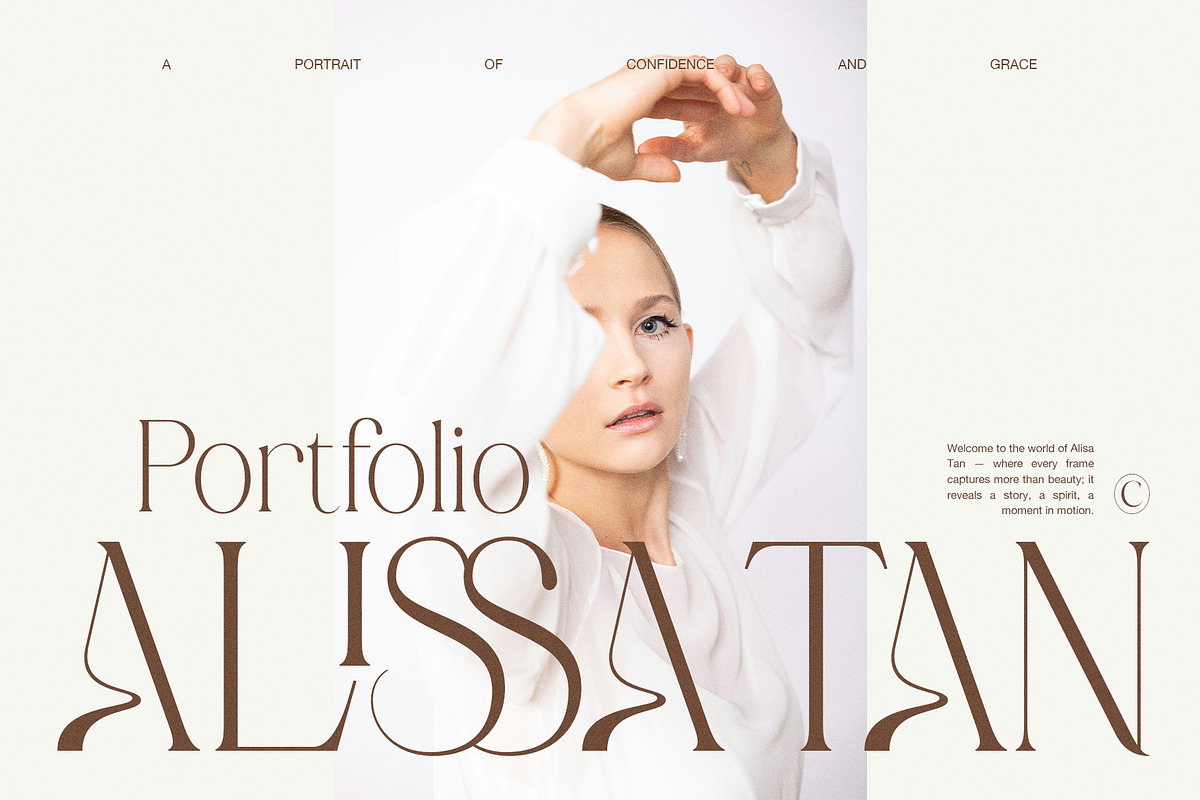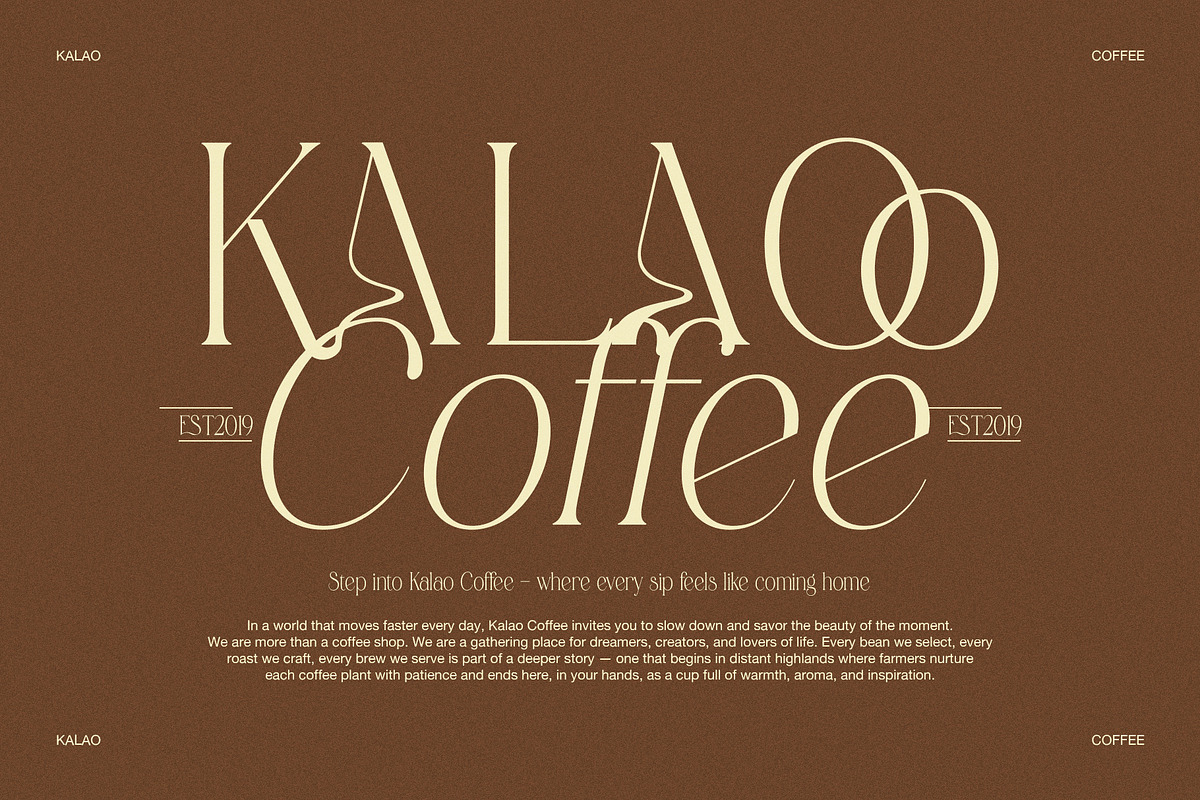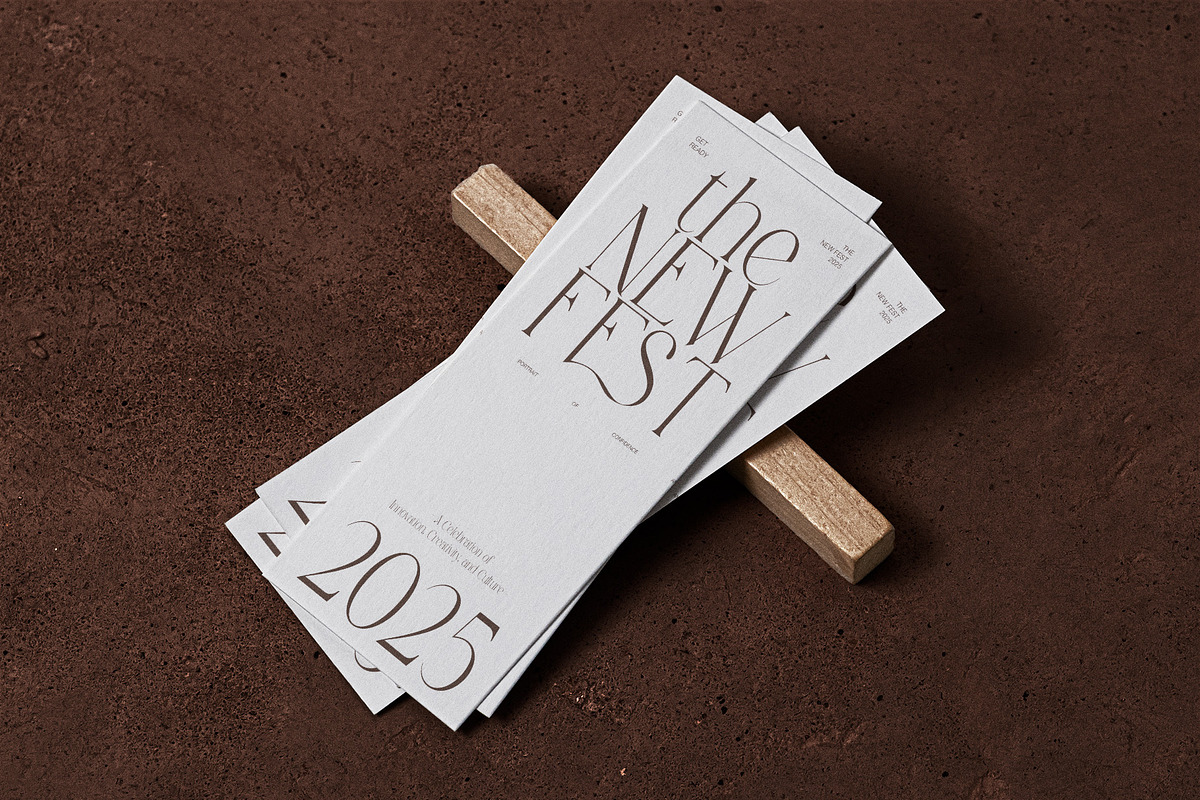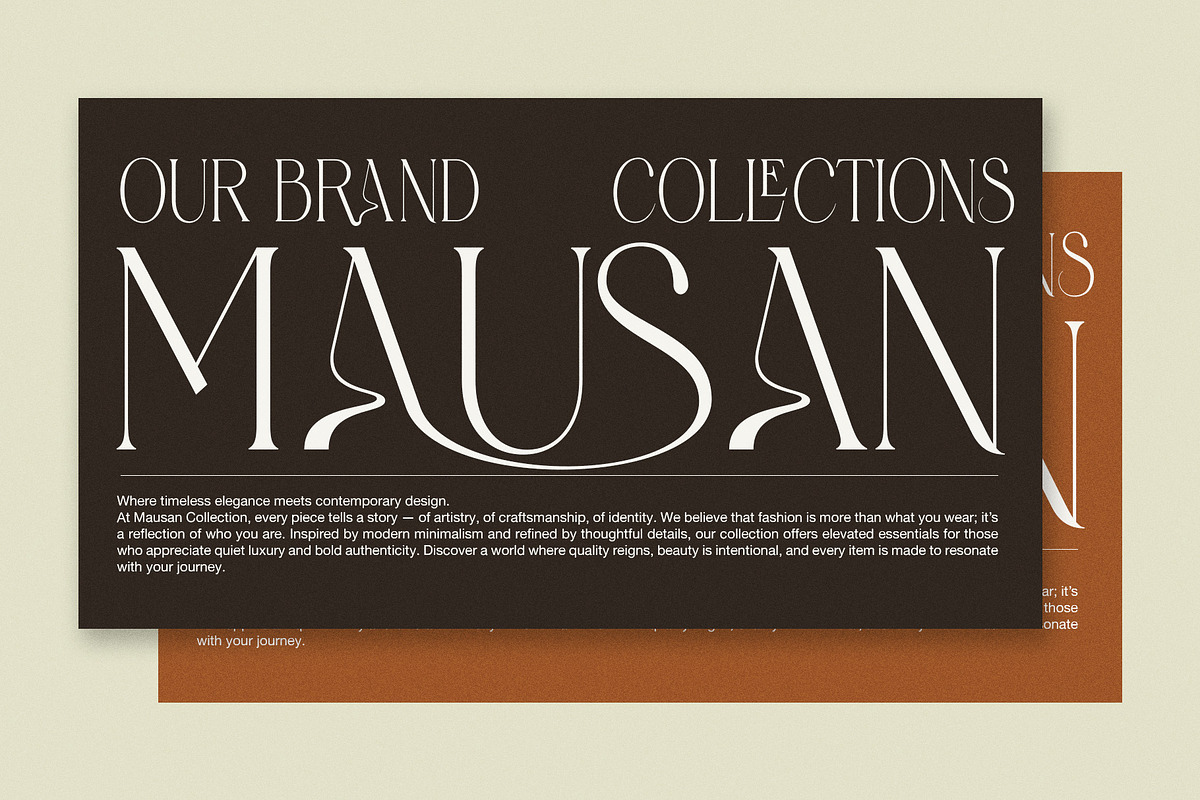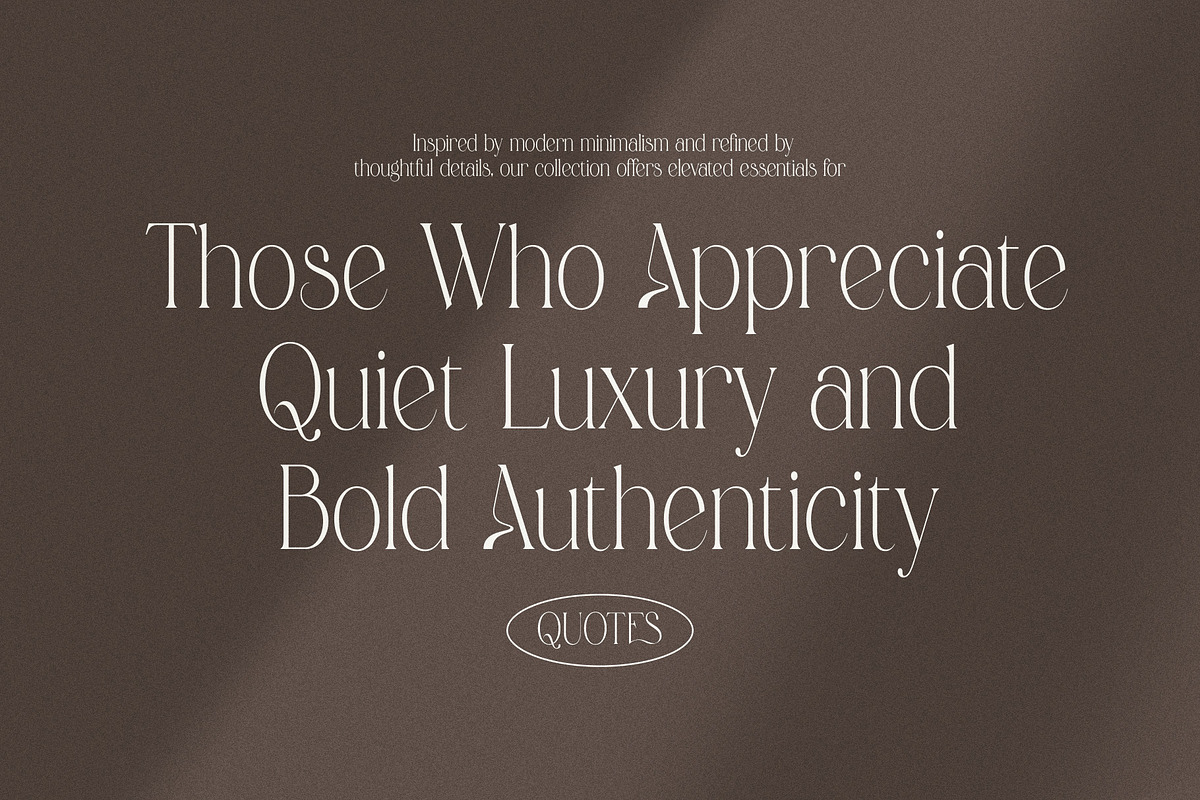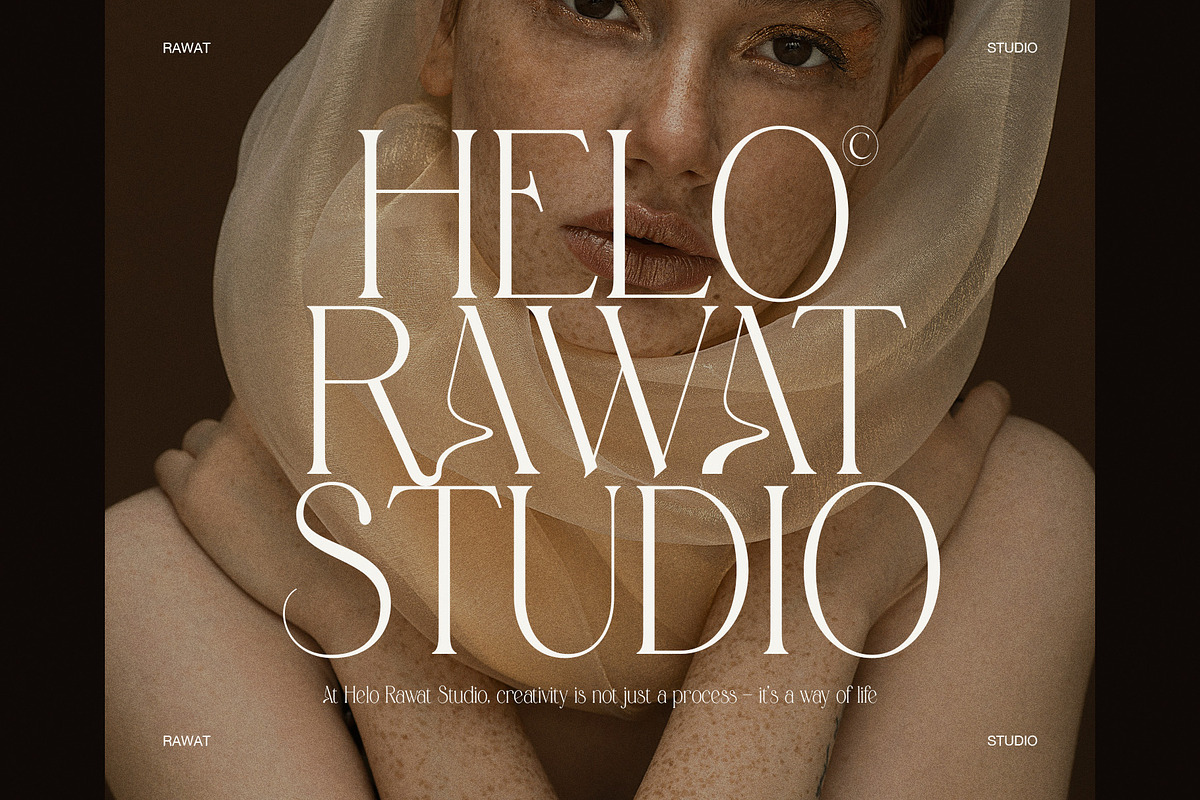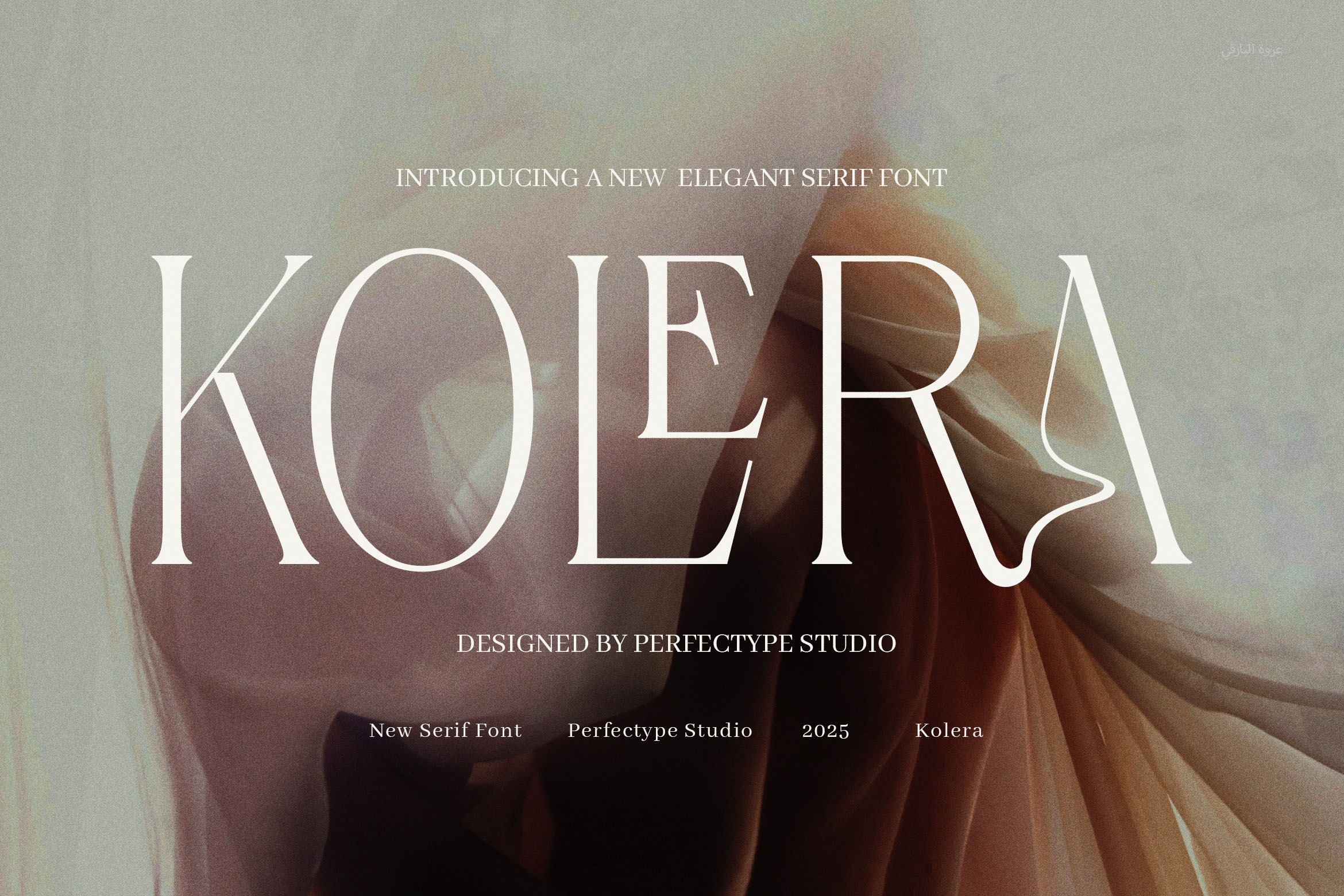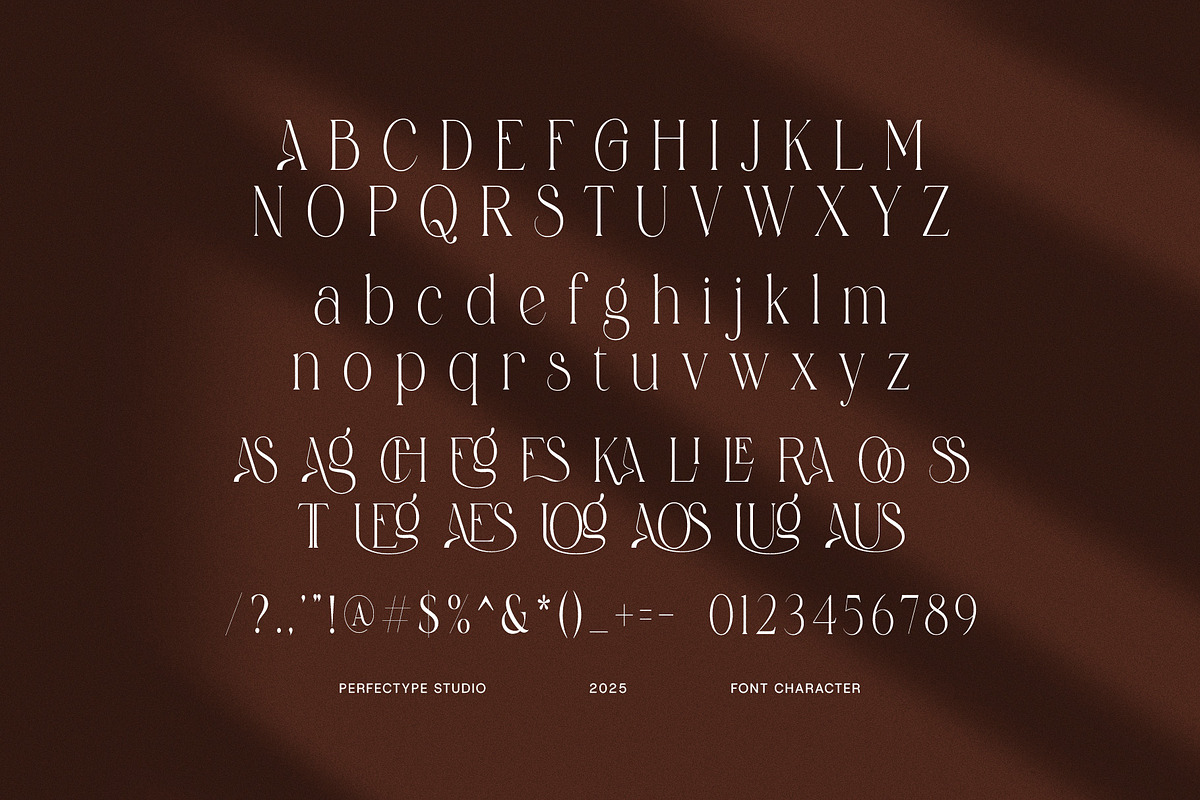
Kollera Ligature Serif Font
Kollera Ligature Serif Font is a refined blend of modern sophistication and classic charm, designed to elevate your visual storytelling across any creative project. With its graceful ligatures and distinctive alternate characters, Kollera offers a seamless fusion of elegance and originality that makes every word a visual experience.
Crafted for versatility, Kollera is more than just a serif font — it's a statement piece. Each character has been carefully designed with smooth curves and strong contrast, delivering a contemporary serif typeface that exudes confidence, luxury, and style. The intelligent use of ligatures enhances the fluidity of text, giving headlines, logos, and branding materials a polished, upscale look.
Perfect for high-end branding, editorial design, fashion labels, and boutique product packaging, Kollera brings a sense of timeless beauty and modern flair. Its thoughtfully designed alternates allow designers to experiment with different aesthetics while maintaining a cohesive and elegant appearance. Whether you’re creating minimalist website headers, bold magazine layouts, or chic advertising campaigns, Kollera ensures your typography feels exclusive and unforgettable.
The font's unique ligatures and alternate glyphs are especially effective for logo design, offering custom-like typography with minimal effort. Use Kollera to create standout wordmarks, luxurious branding elements, or stylish Instagram graphics that captivate and inspire.
Kollera is ideal for creatives seeking a serif font that is both expressive and professional. Its balance of delicacy and structure makes it suitable for fashion editorials, lifestyle brands, premium food and beverage labels, or beauty and wellness identities. No matter the medium, Kollera adapts beautifully — in print or on screen.